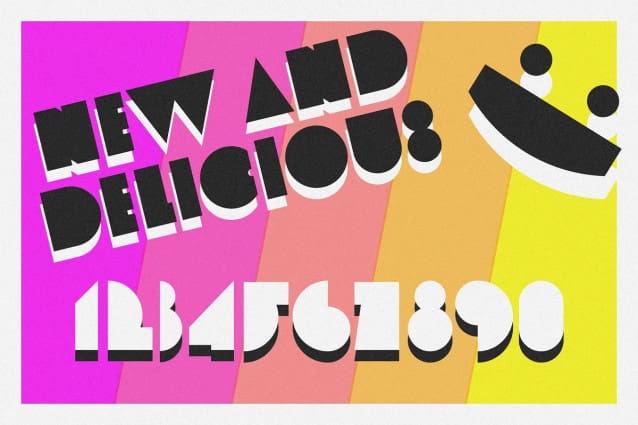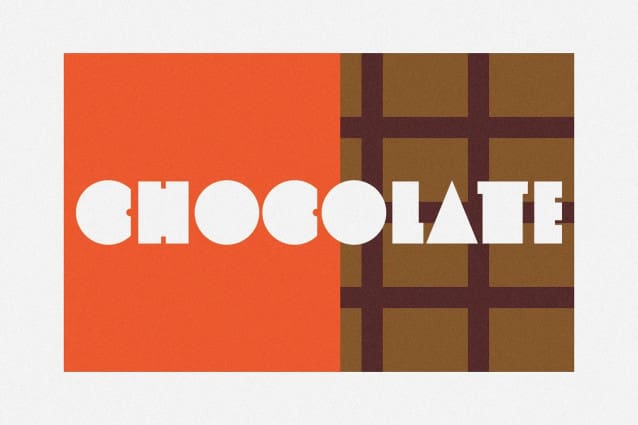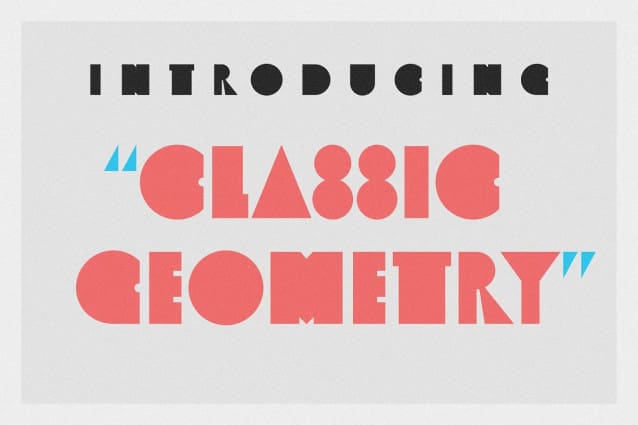
Classic Geometry Font
Classic Geometry Font, It would be a perfect choice to design posters, affiches, logos, t-shirt and magazine prints, eye-pleasing typographic designs and more.